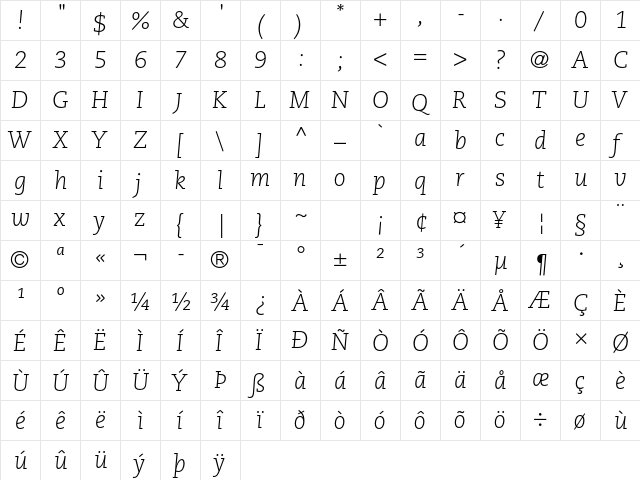
Caecilia LT Std 46 Light Italic Font Preview
| Designer | Peter Matthias Noordzij |
Design Context for Caecilia LT Std Typeface
Caecilia LT Std takes a measured approach to typography — its balanced proportions and neutral character make it a reliable workhorse for both digital and print work. The dynamic lean of this cut emphasises speed and emphasis in any layout. Its slender proportions lend an understated elegance to any composition.
Pro Tip: Try Caecilia LT Std for annotation and caption copy alongside an upright companion — the contrast in angle creates a dynamic but ordered typographic system.